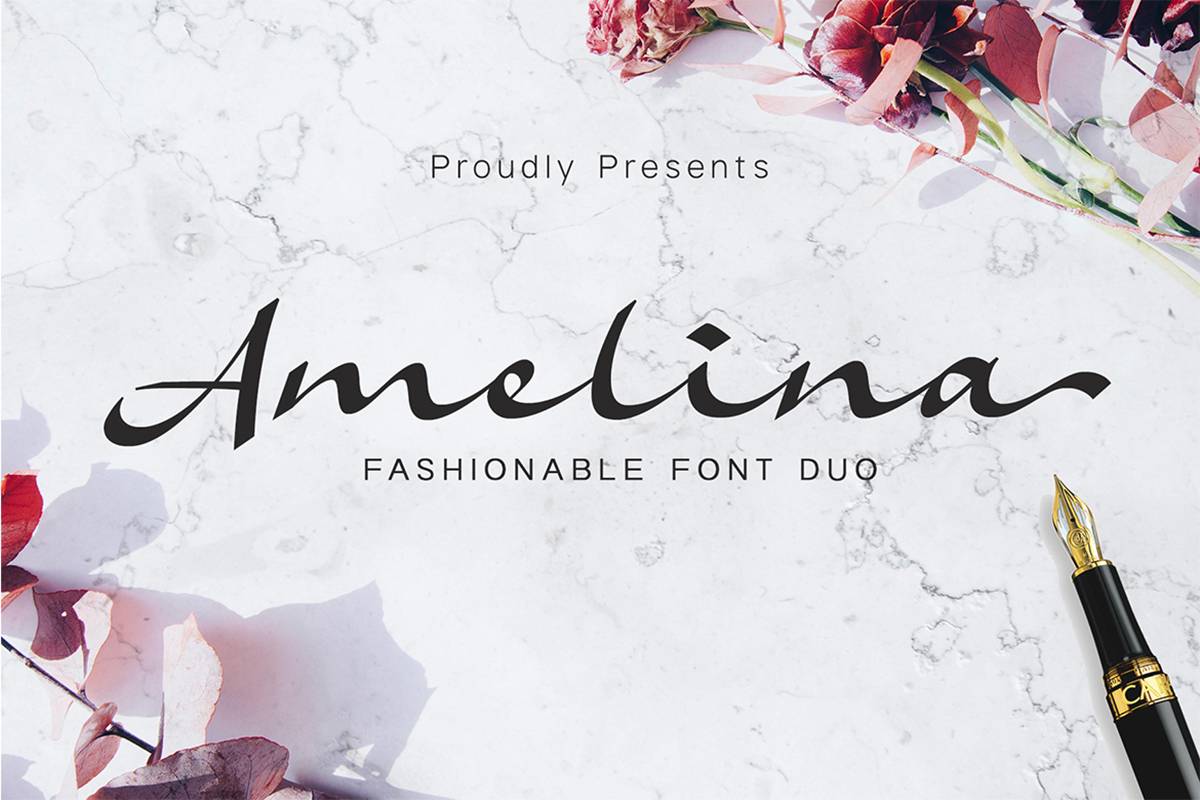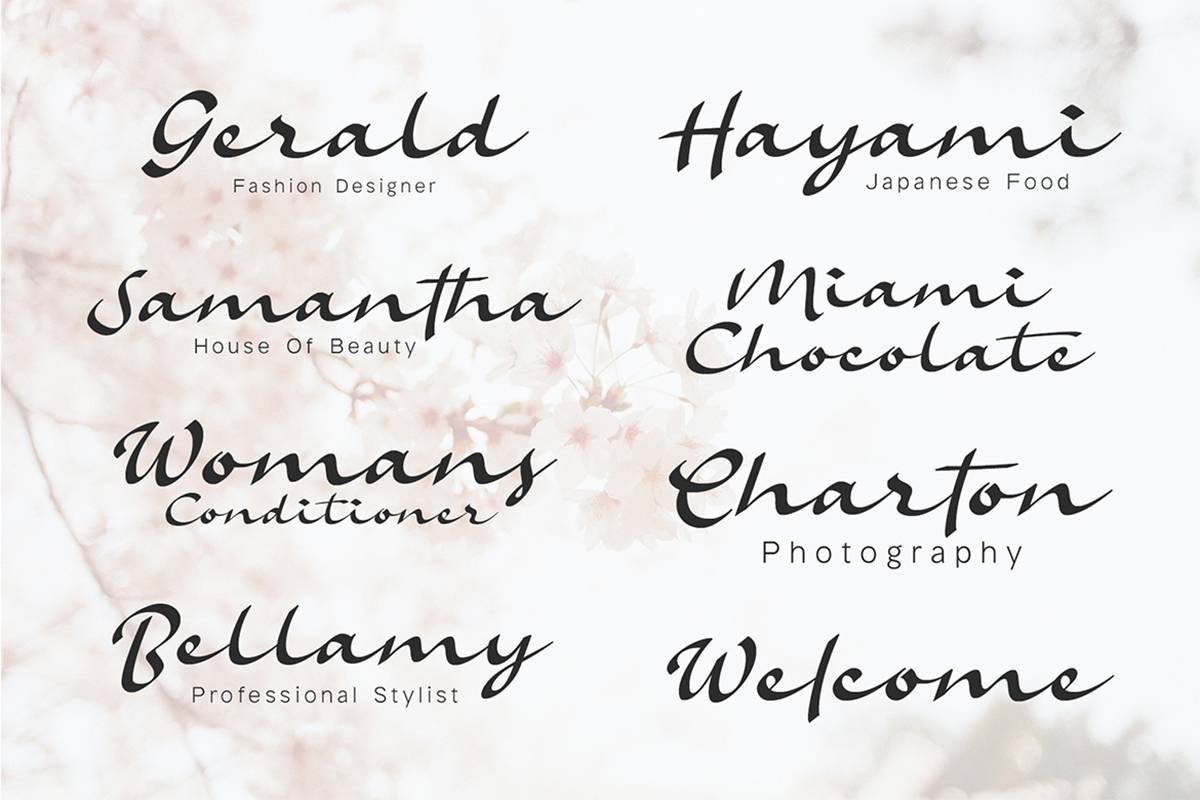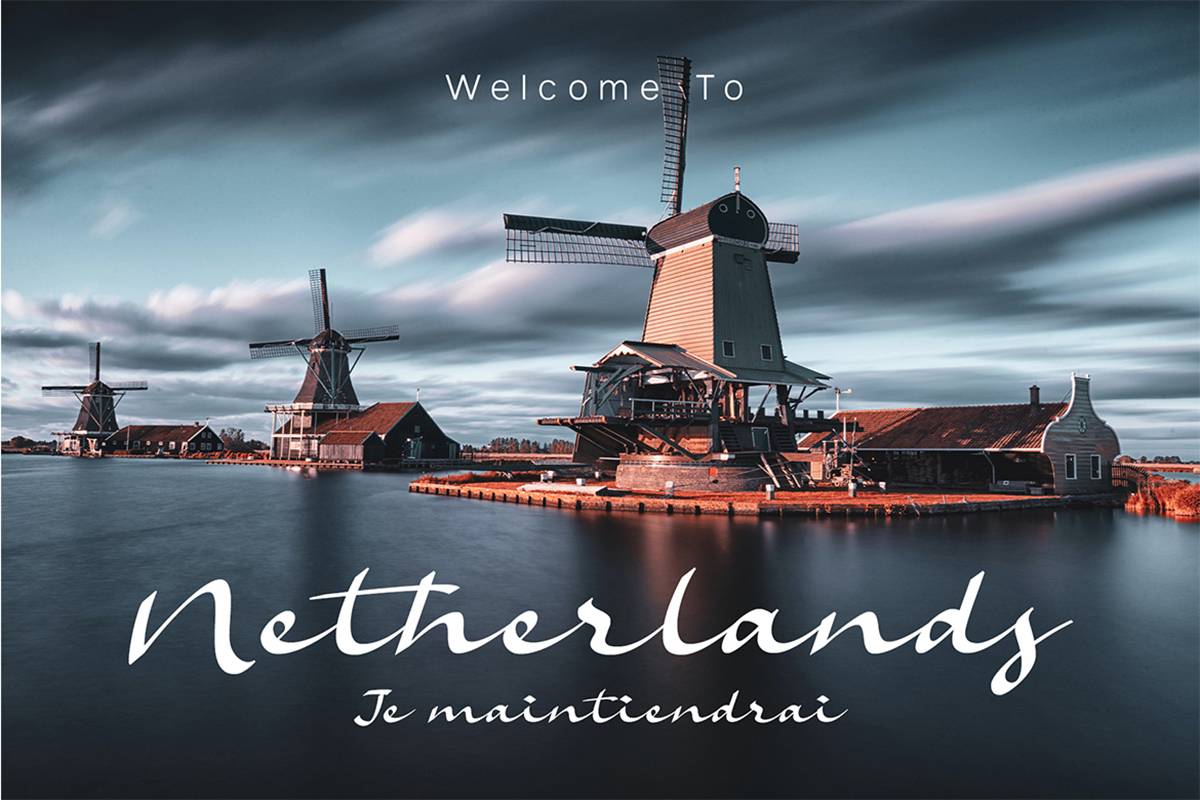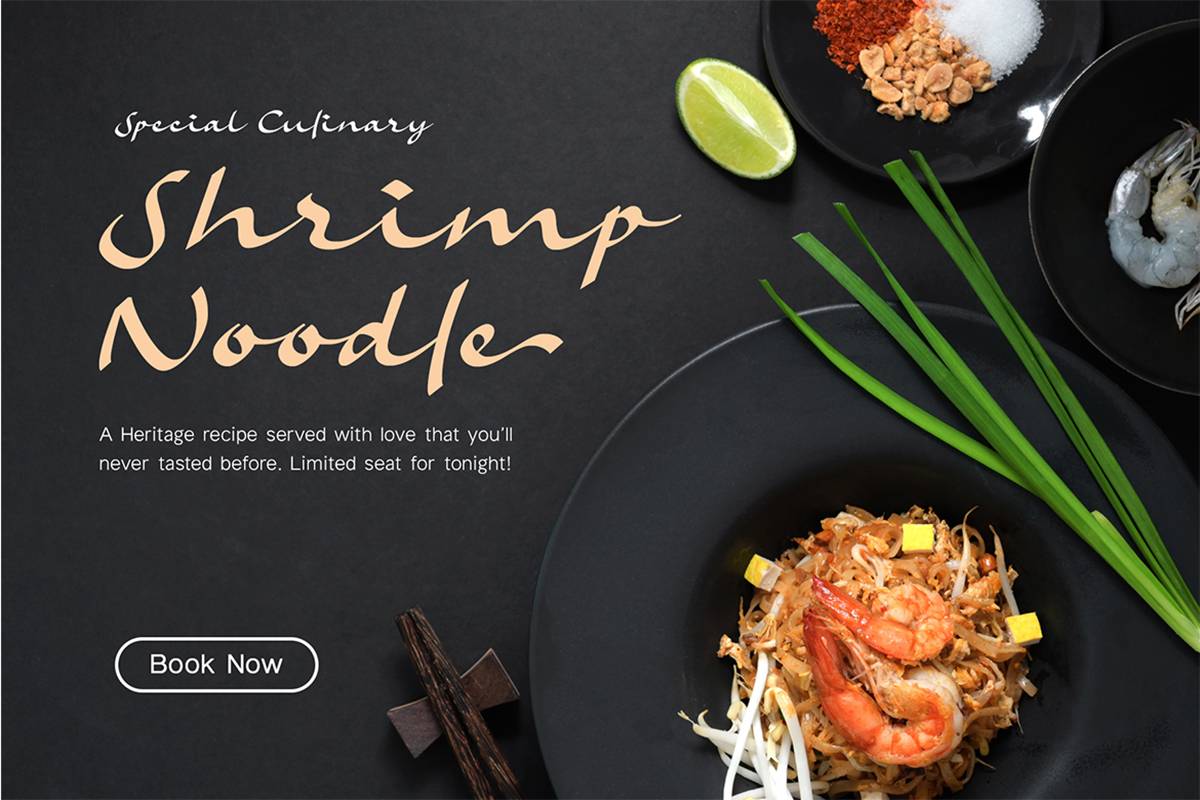
Amelina is an elegant script font with a refined, handwritten quality characterized by smooth, flowing strokes and medium contrast. Its slender, slightly slanted letterforms evoke a classic, romantic feel, making it ideal for invitations, branding, and stylish editorial projects that seek to convey sophistication and personal touch. The font’s graceful curves and clear readability add a delicate charm perfect for luxury or feminine design contexts.
Amelina Font
About Amelina Font